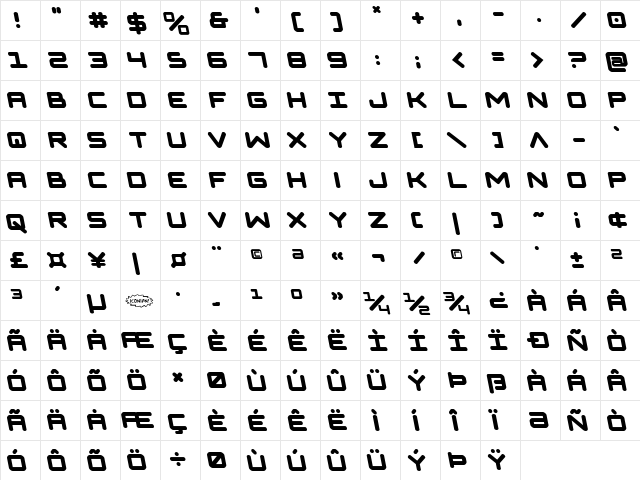
NGC 292 Semi-Leftalic Regular
Design Context for NGC 292 Semi-Leftalic Typeface
NGC 292 Semi-Leftalic is a composed and adaptable typeface that performs quietly and consistently across a wide range of design contexts. The dynamic lean of this cut emphasises speed and emphasis in any layout.
Pro Tip: Try NGC 292 Semi-Leftalic for annotation and caption copy alongside an upright companion — the contrast in angle creates a dynamic but ordered typographic system.